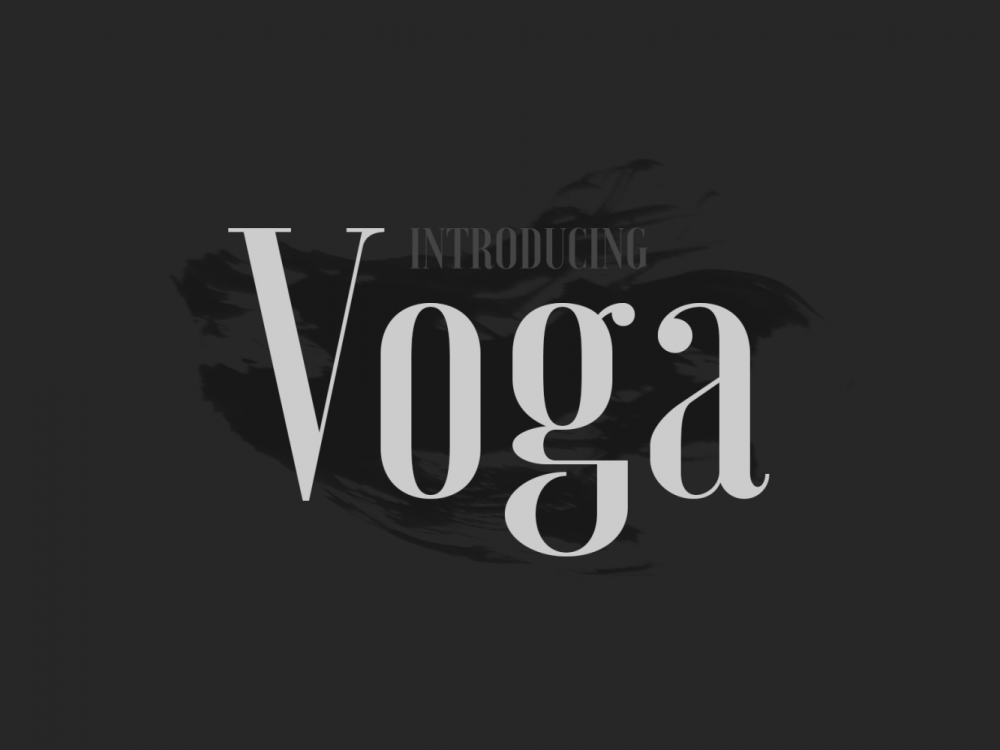
Voga Font Family
Voga Font Family is an interesting modern font with an elegant outline that will help you create memorable design projects. Use this font to create posters, invitations, cards, branding, flyers, prints, and more.